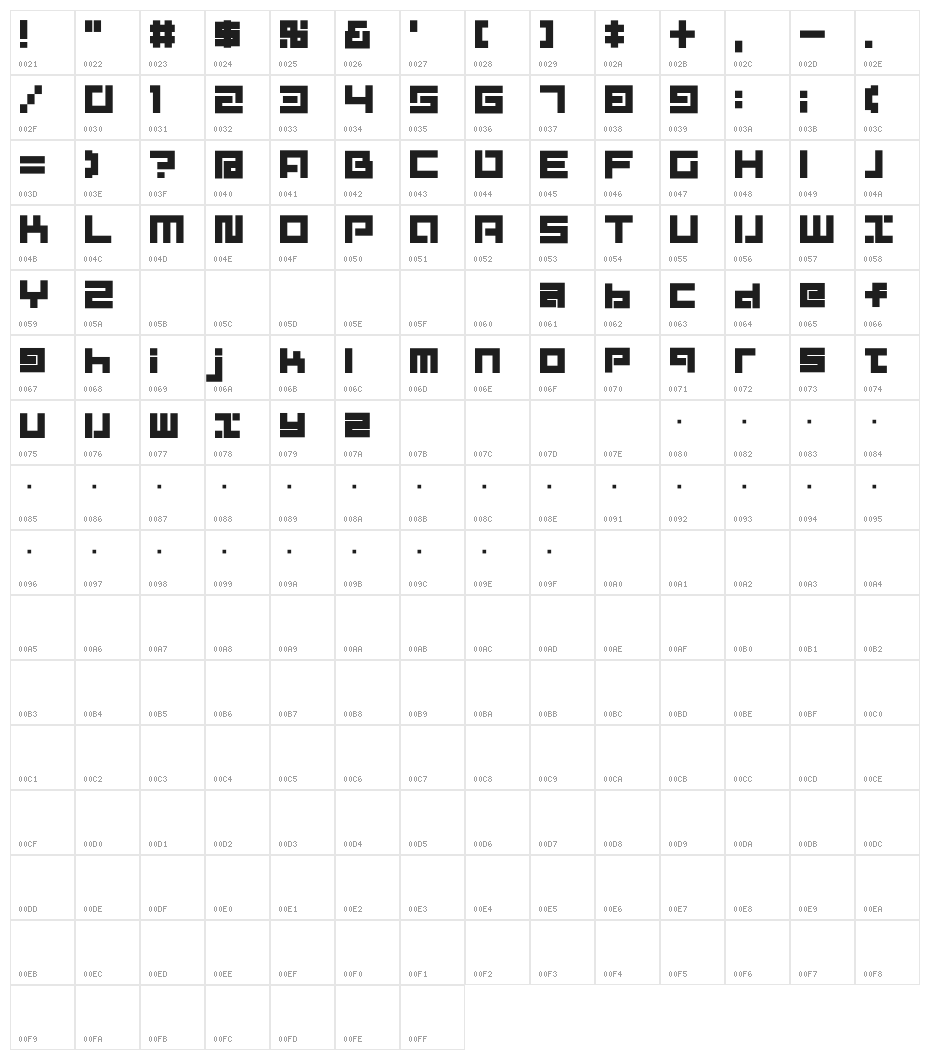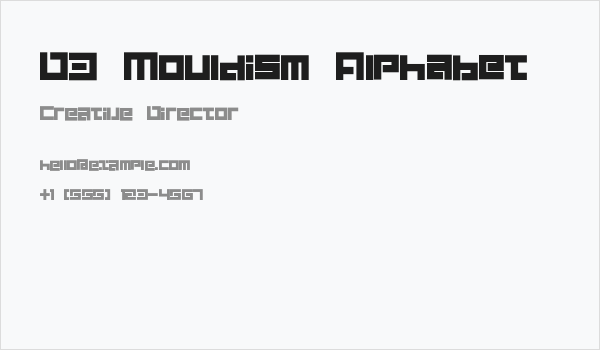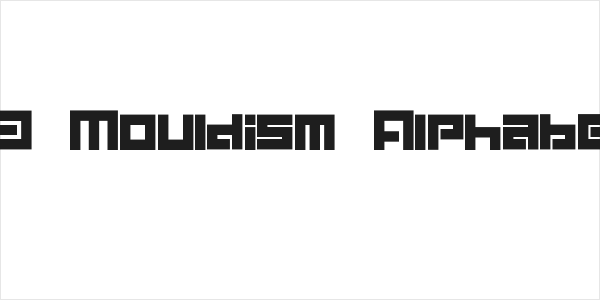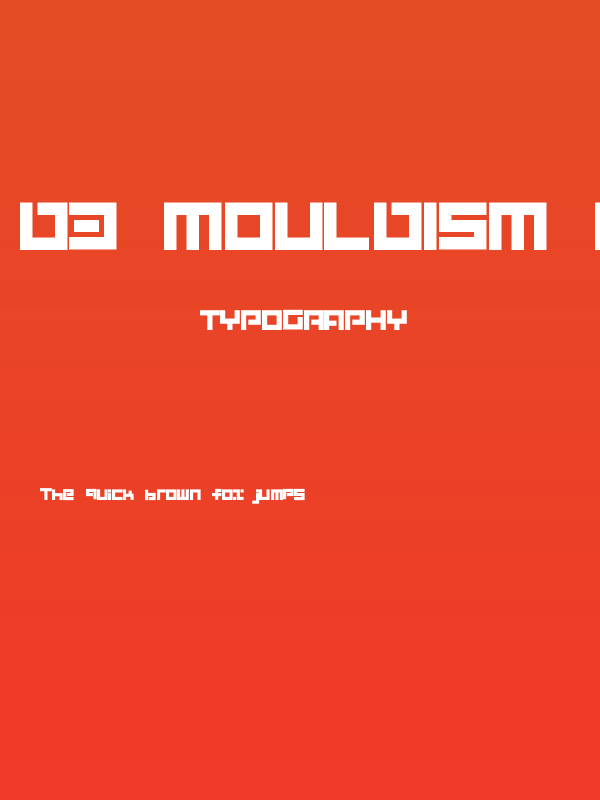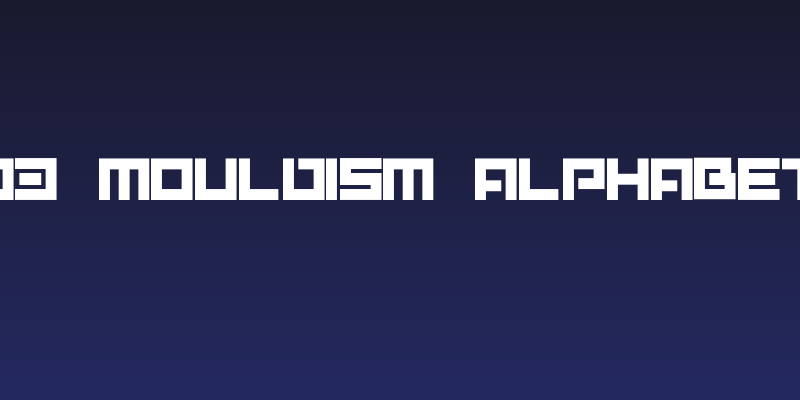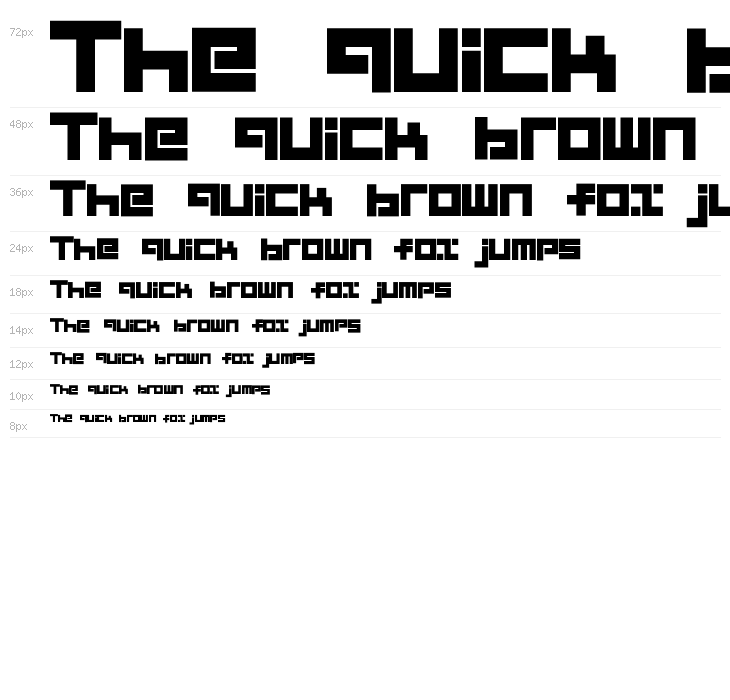
D3 Mouldism Alphabet Font
D3 Mouldism Alphabet Description
This font features a bold, geometric design with a futuristic and digital aesthetic. Each character is constructed with sharp, angular lines and block-like shapes, creating a sense of structure and modernity. The uppercase and lowercase letters maintain a consistent style, with minimal differentiation between the two, emphasizing uniformity. Numbers and special characters follow the same design principles, ensuring a cohesive look across all elements. The font's distinct appearance makes it ideal for projects that require a strong visual impact.
| Proposed Projects | Ideal for tech-related branding, video game titles, digital art projects, and modern poster designs. |